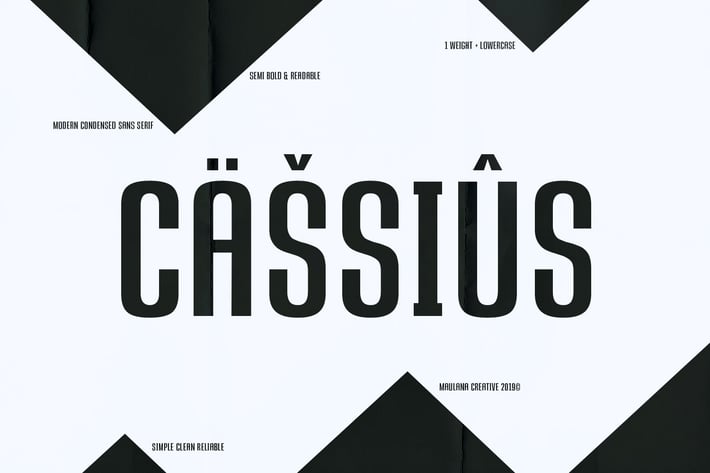
CASSIUS - Sans Font
Cassius Sans Font is a Bold sans serif. CASSIUS Sans Font is perfectly suited to branding, logos, magazines, films, website, headlines, titles, captions, games, apps, posters, t-shirts and more.